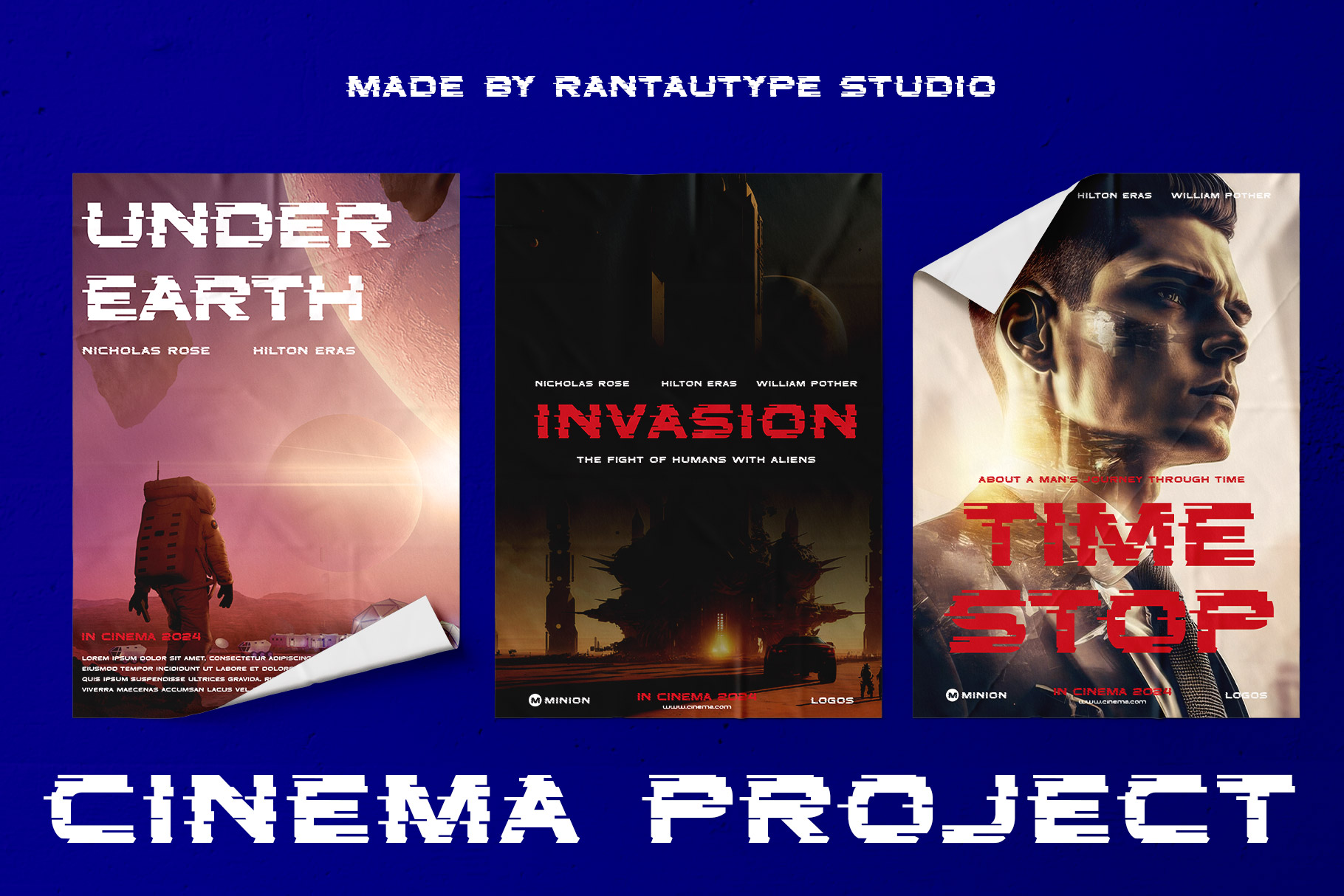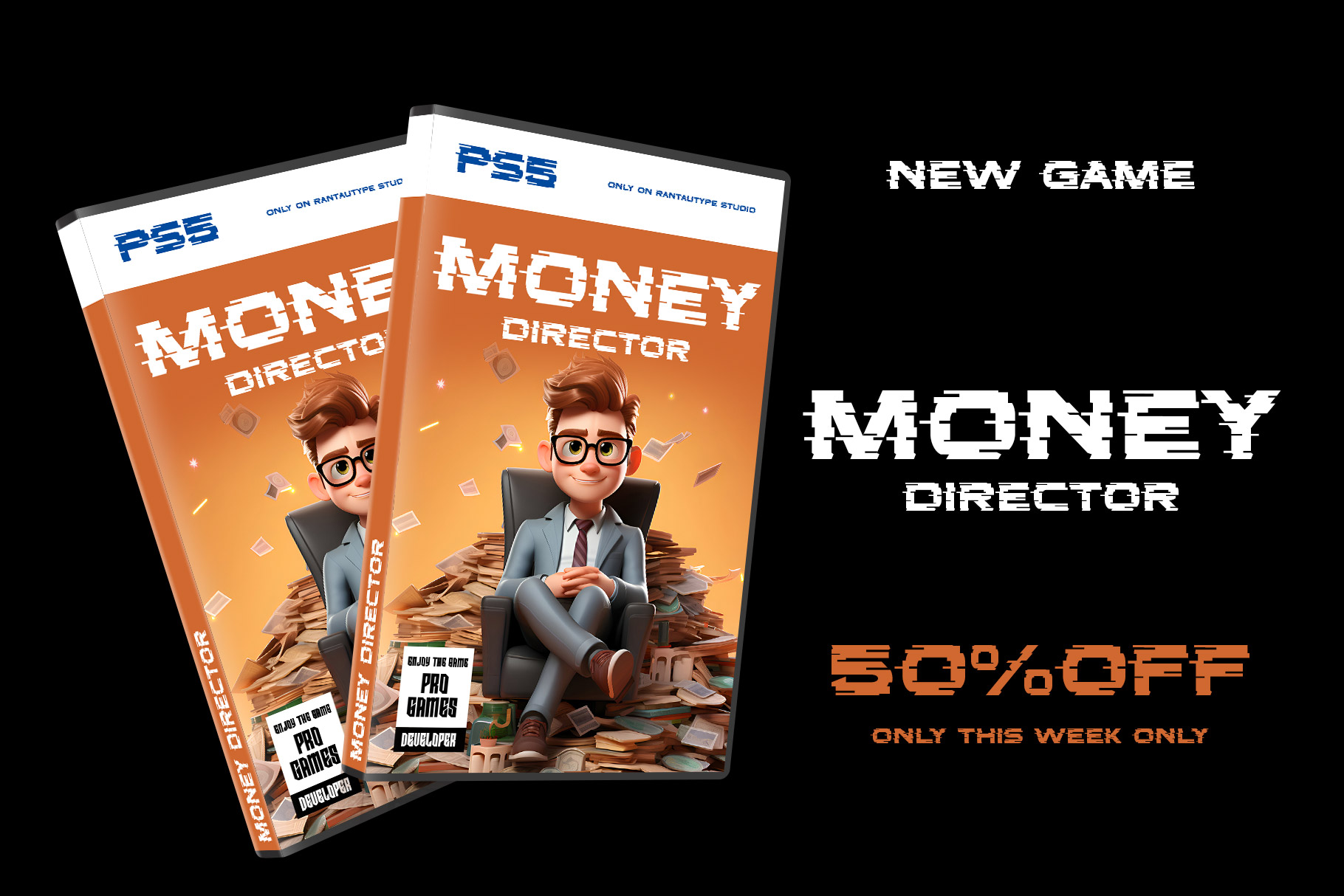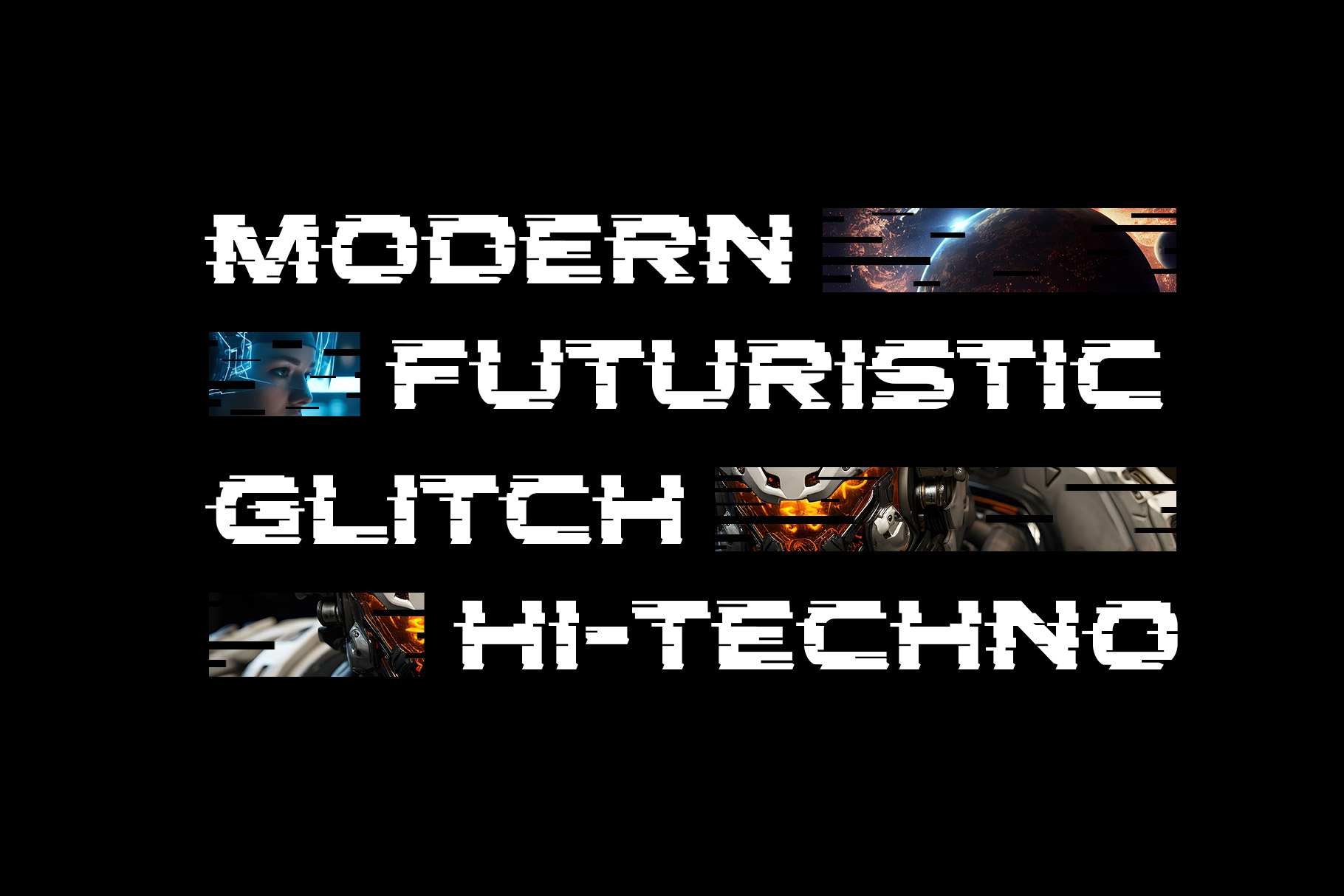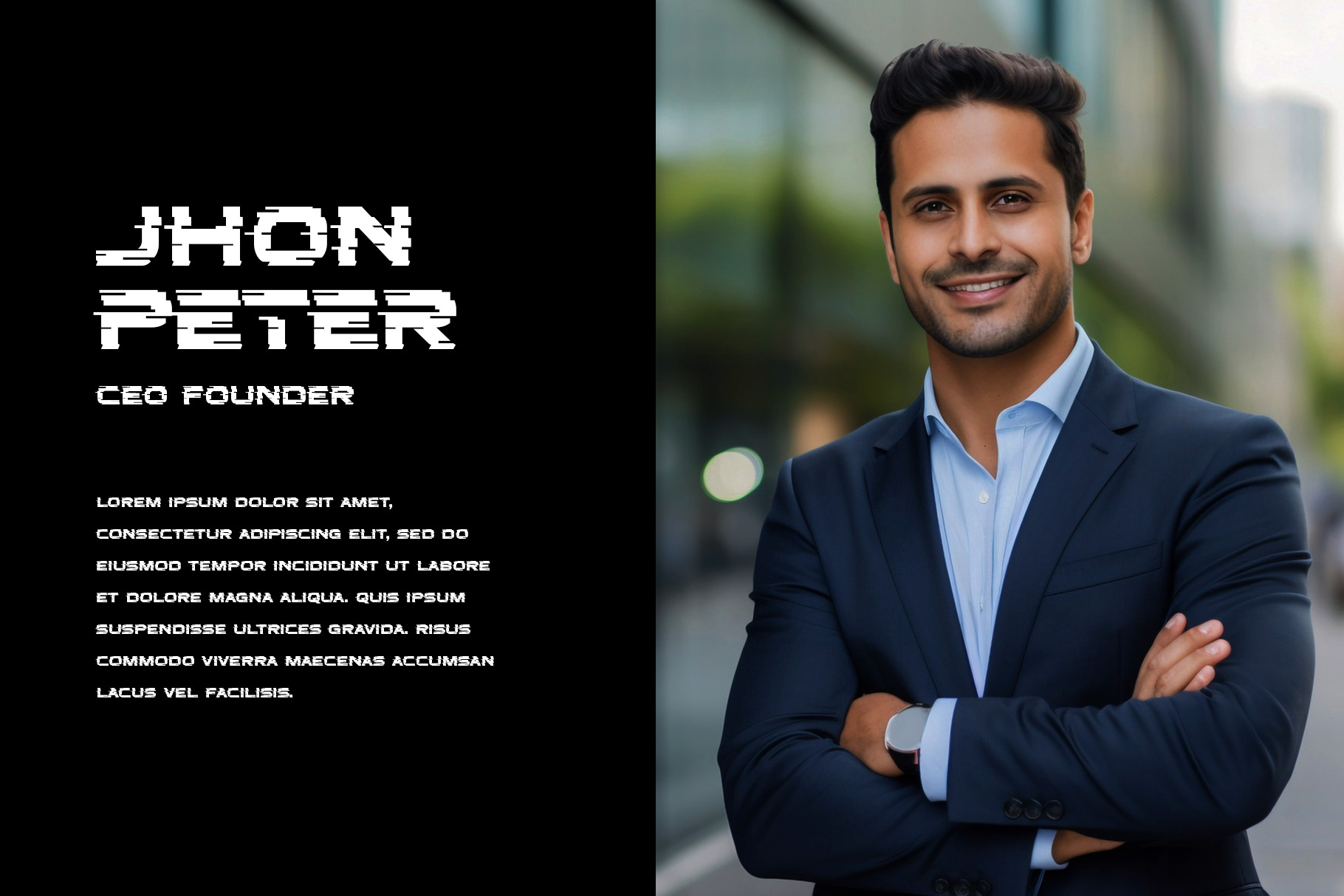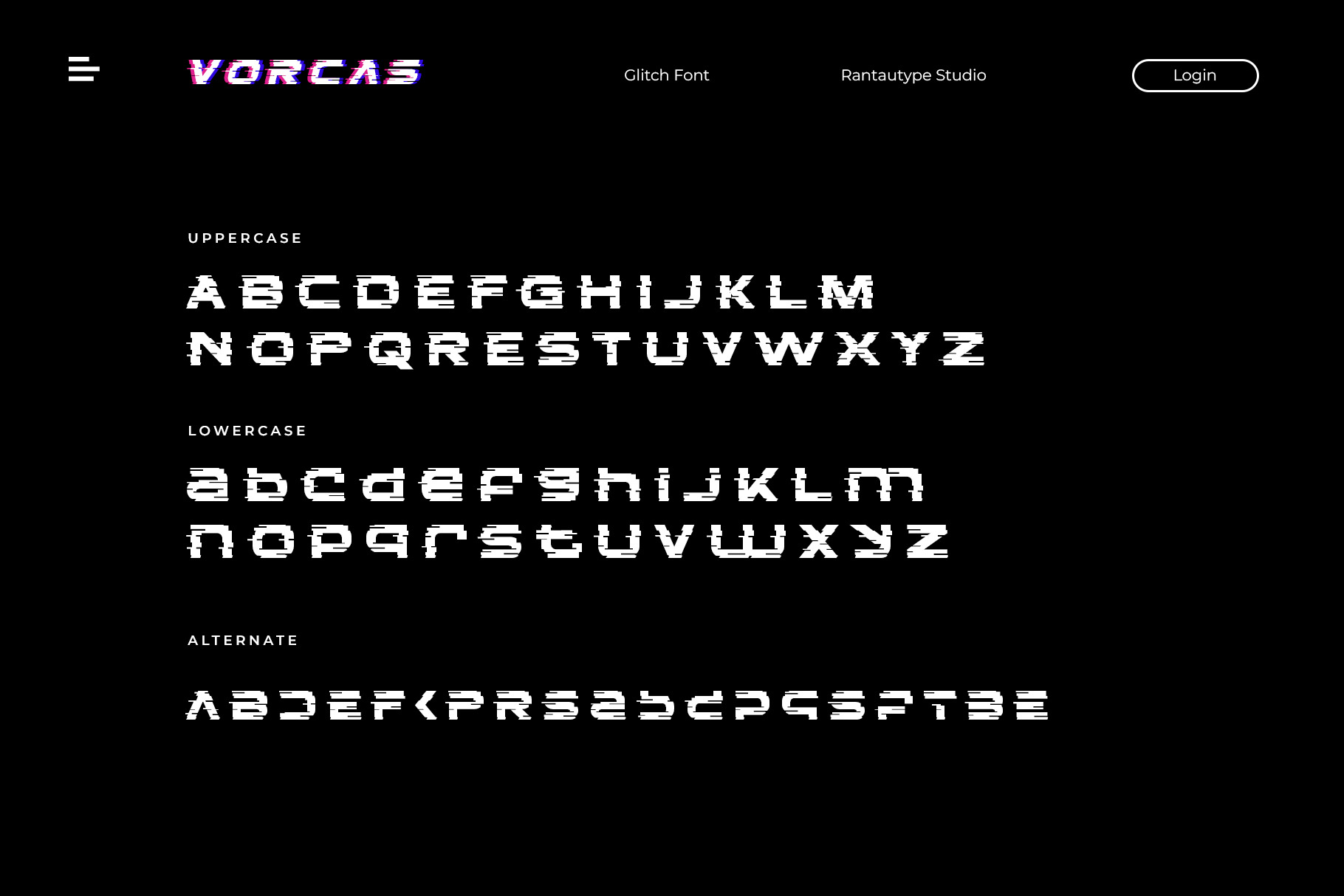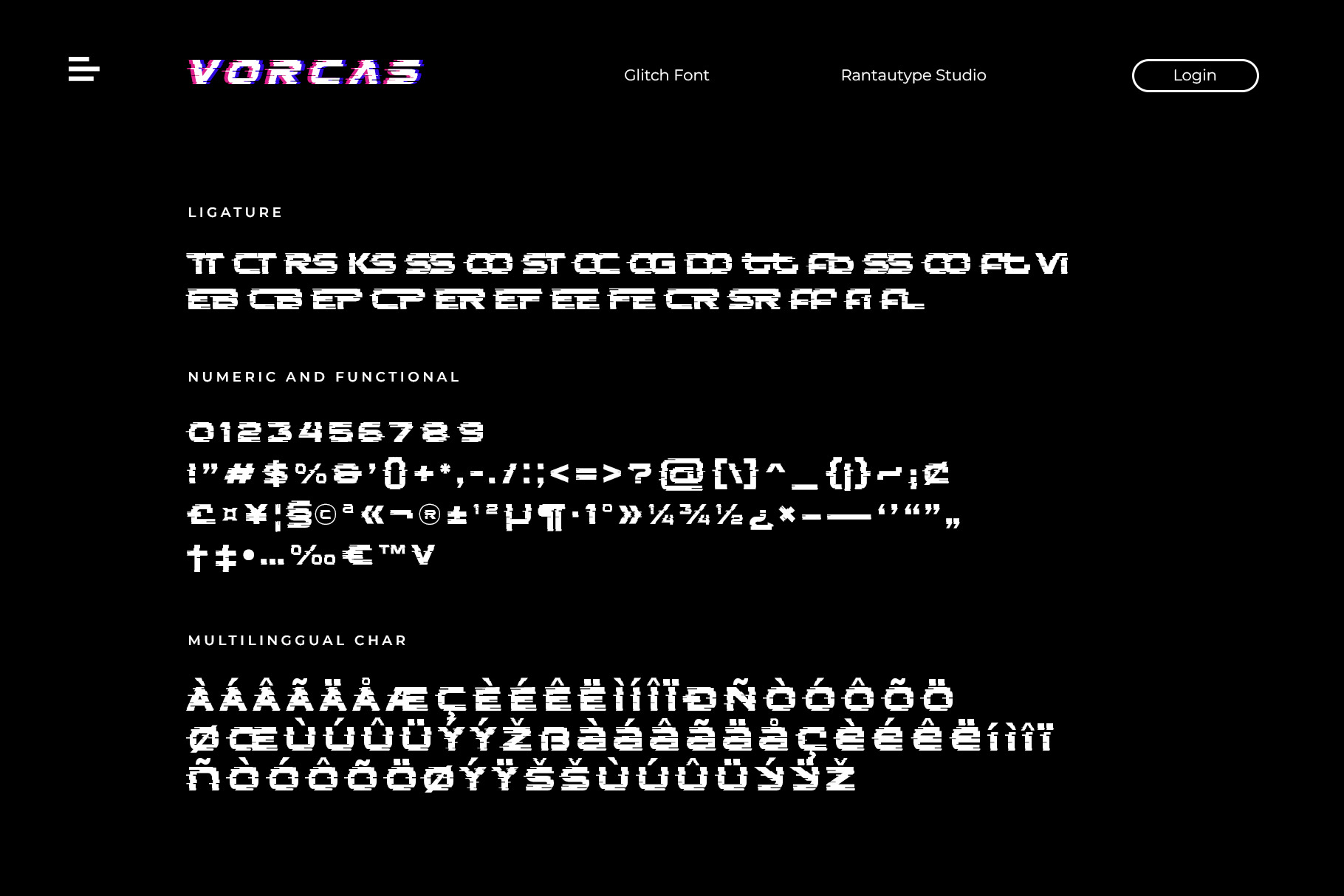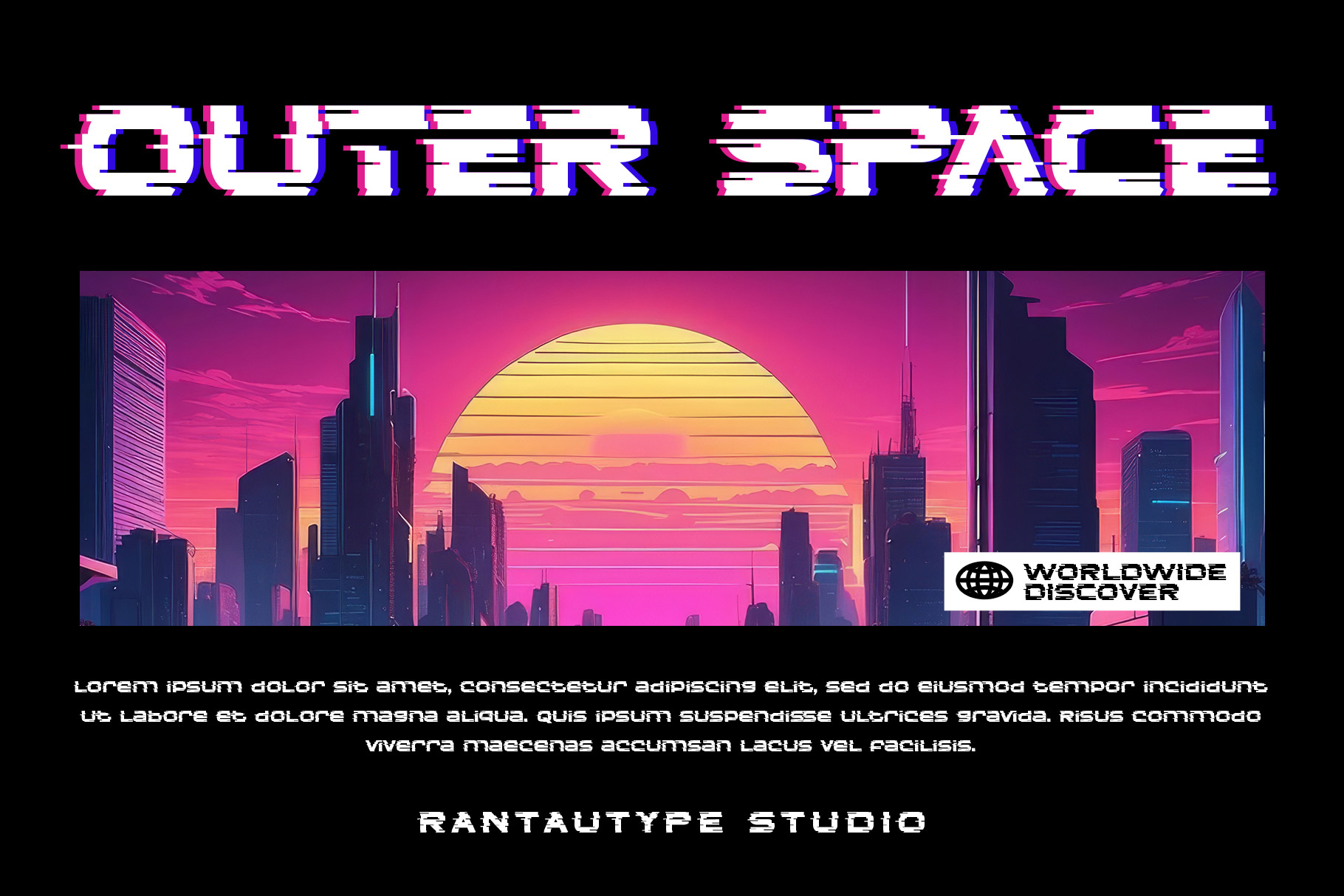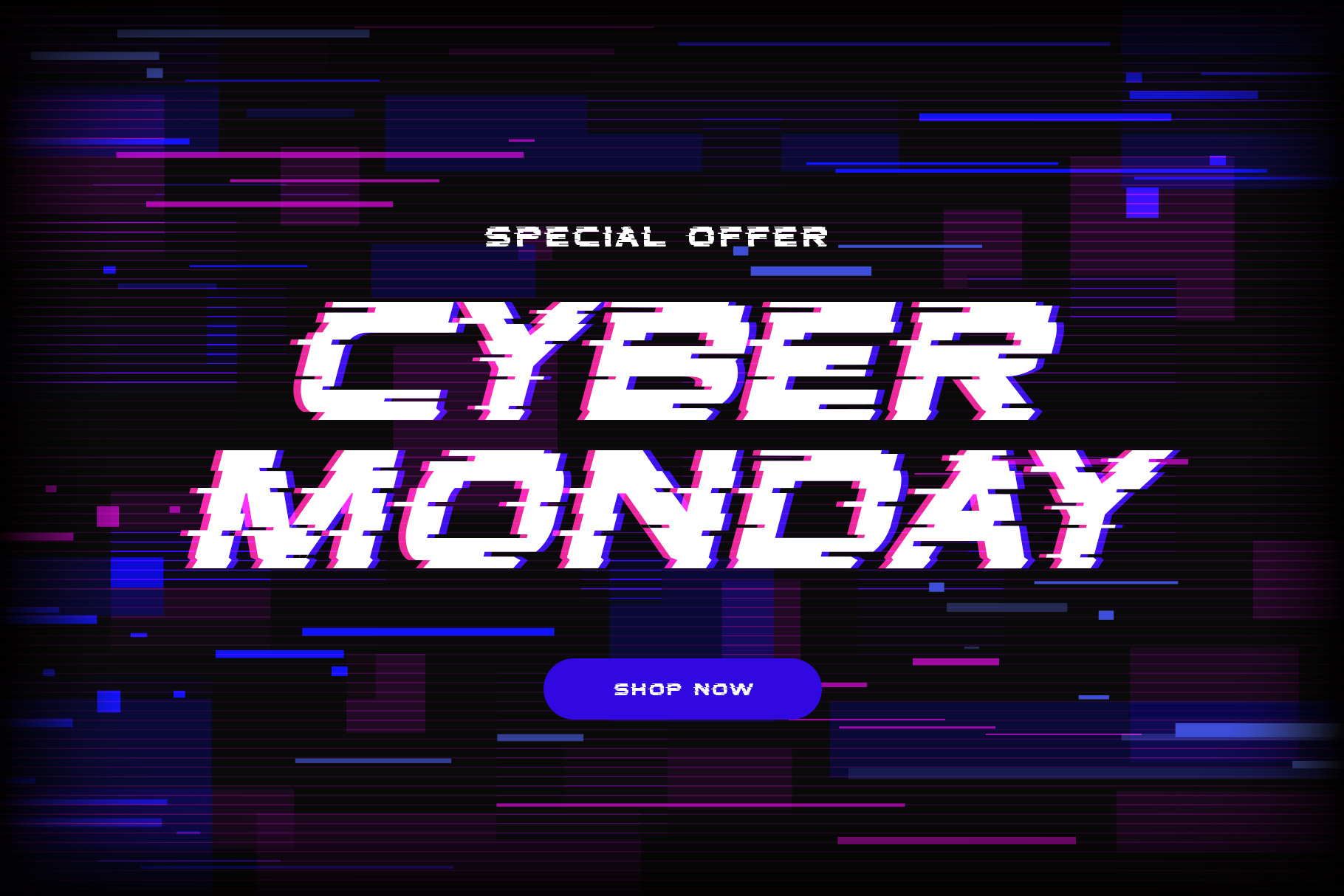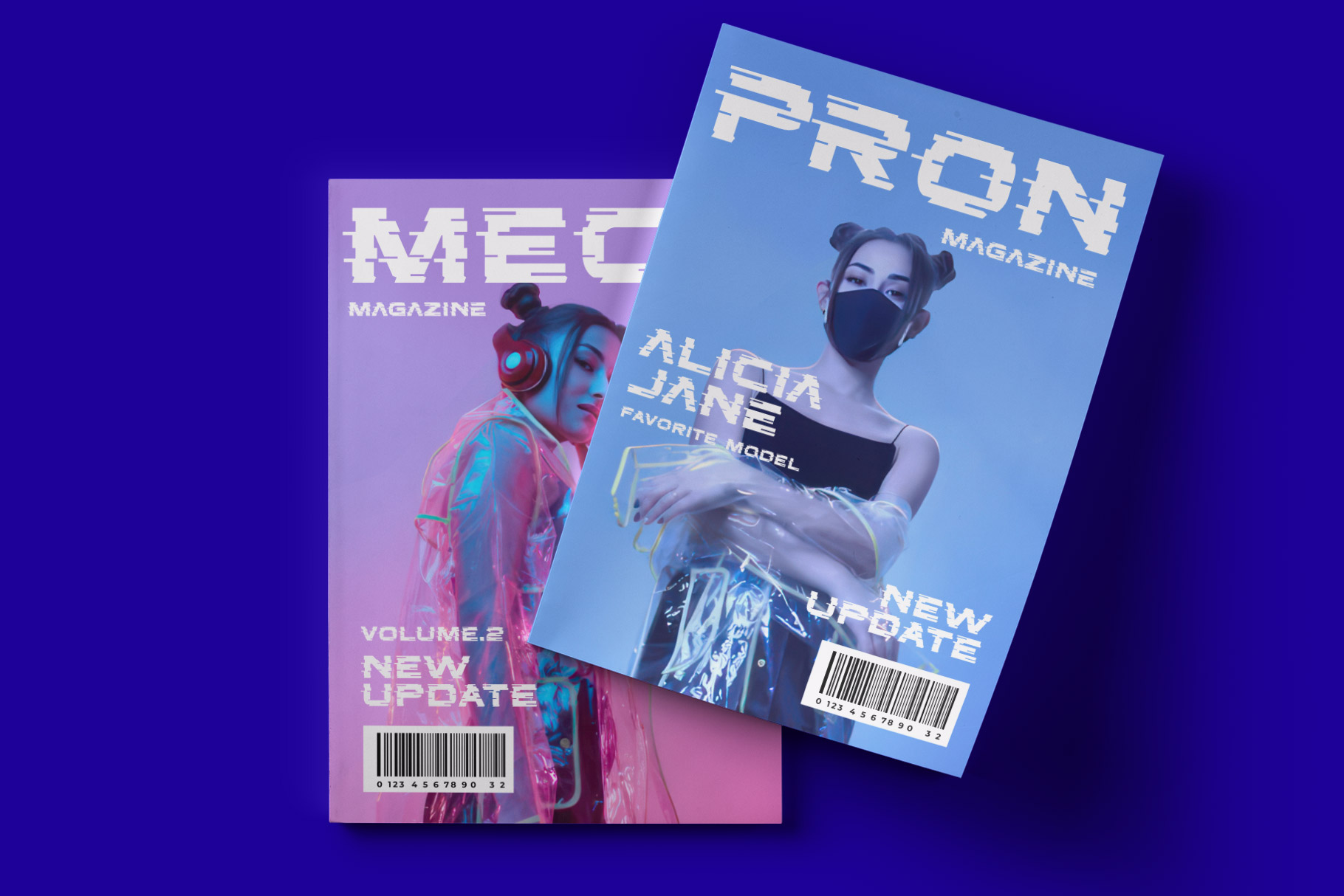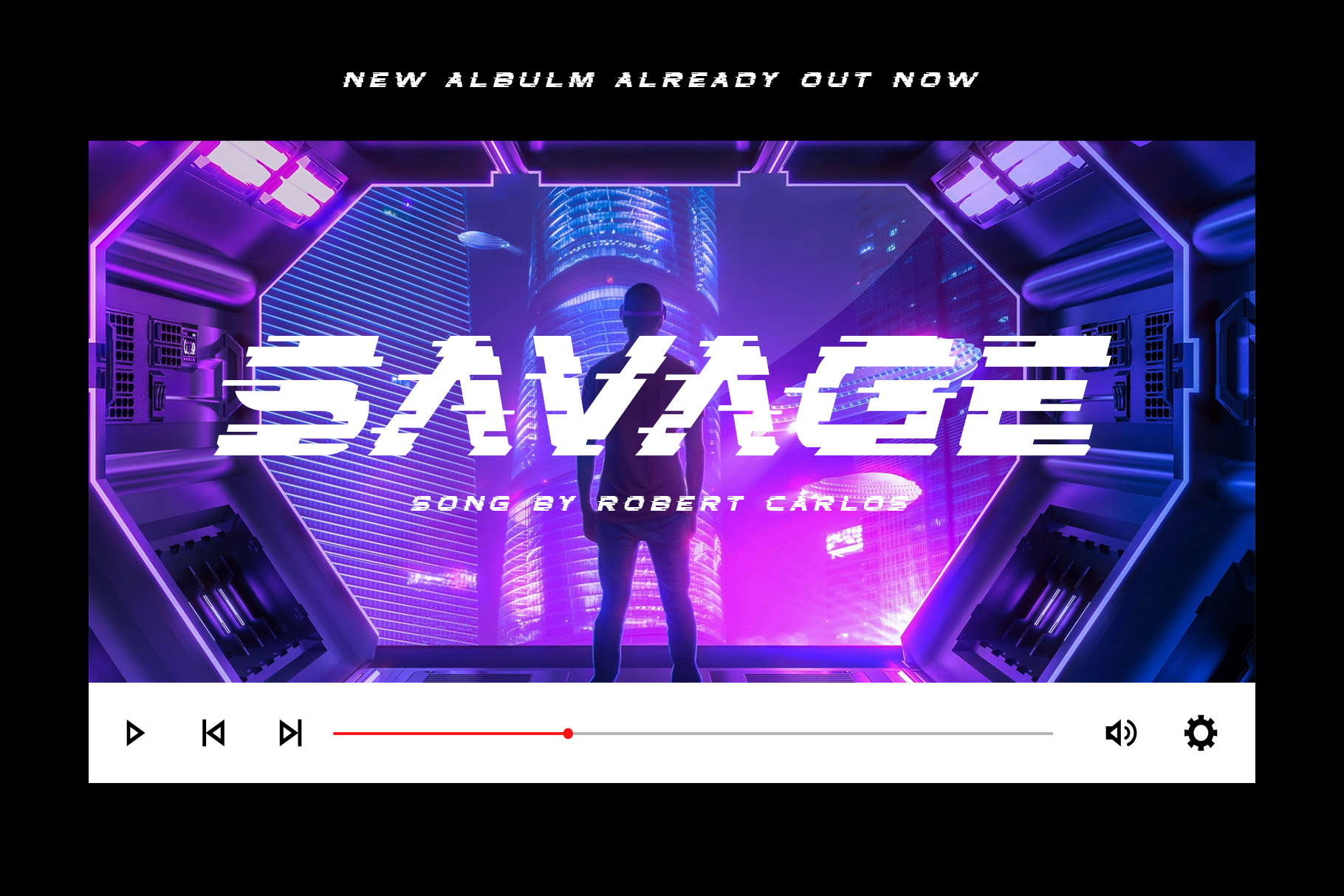
Vorcas Glitch Font
Vorcas is experimental font that gives the appearance of digital glitching effect inspire from image error system. We keep this font look modern and futuristic shape.
Vorcas is a perfectly choice for any creative endeavor, chic, lifestyle design such as logos, advertisements, stationery, branding project, display and magazine, corporate brand, product design, label, business project and many other project with futuristic or sporty touch.